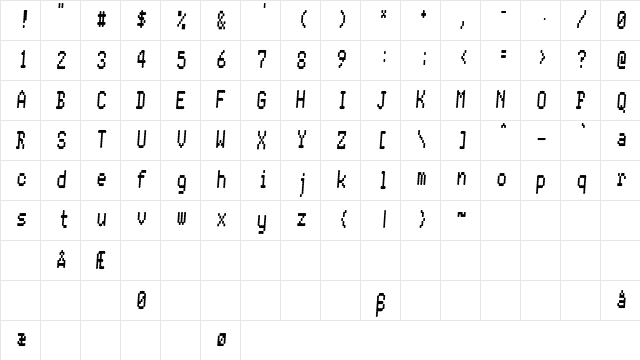
Conman fat Regular Font Preview
Conman fat Regular
Design Context for Conman fat Typeface
Conman fat is a composed and adaptable typeface that performs quietly and consistently across a wide range of design contexts.